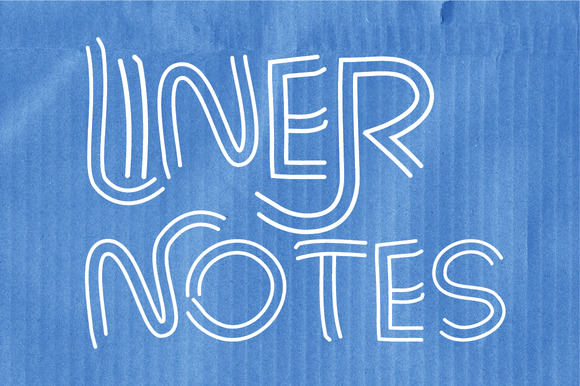
Liner Notes Family Font
Unleash your inner artist and let your designs scream with attitude! Introducing Liner Notes Family Font, the ultimate display font that captures the essence of youthful rebellion and urban vitality.
Step into a world where letters dance with energy, where each character is a stroke of pure creativity. Liner Notes' scrawly, all-caps design evokes the raw beauty of school graffiti, adding an edgy touch to your projects.
With Liner Notes, you'll create designs that speak volumes. Its bold, unapologetic style commands attention, making it the perfect choice for posters, logos, T-shirt designs, and social media graphics that demand to be seen.
Dive into the world of Liner Notes and discover a font that's as versatile as it is captivating. Its playful nature lends itself to a range of design styles, from quirky and casual to bold and rebellious. Whether you're creating a concert poster, a streetwear brand logo, or a social media post that sizzles, Liner Notes has you covered.
Let your imagination run wild and explore the endless possibilities that await you with Liner Notes. Transform your designs into works of art that leave a lasting impression. Its unique character and urban edge will elevate your projects to new heights, making them stand out from the crowd.